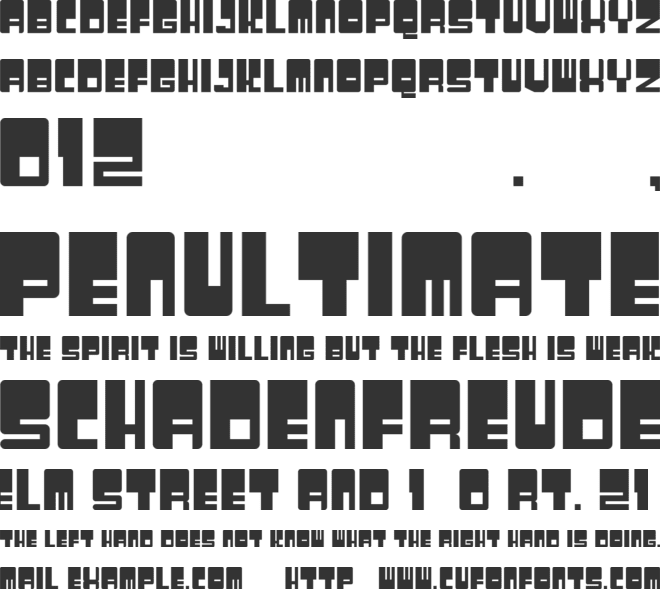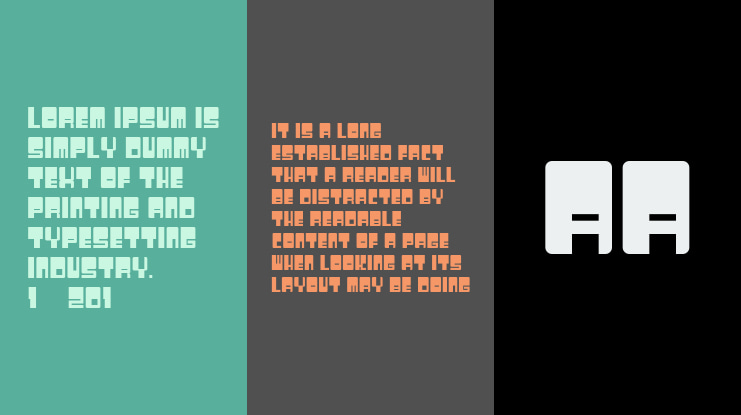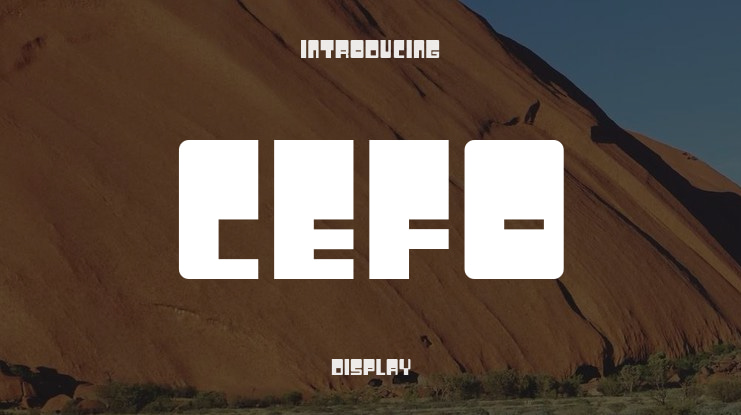
Cefo Font
CEFO is a bold and playful food-themed display typeface perfect for menus, branding, packaging, and creative projects that need fun, fresh character.